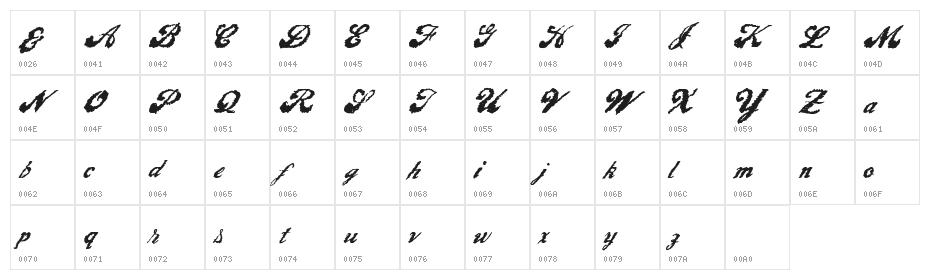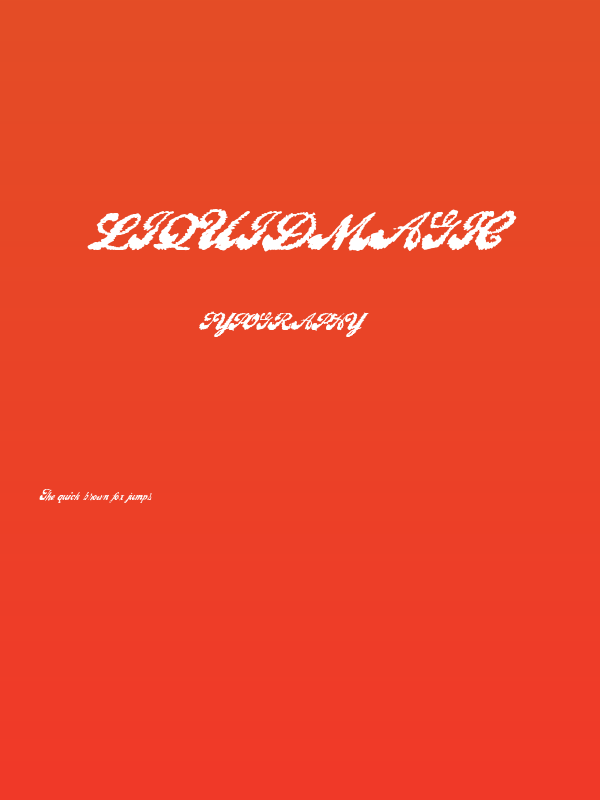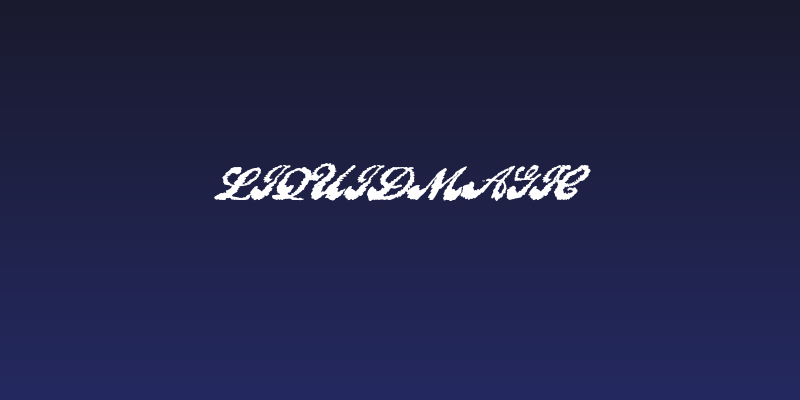
LiquidMagic Font
LiquidMagic Description
This font features a fluid, cursive style that mimics the elegant flow of handwriting. The characters are interconnected, creating a seamless and continuous look. The strokes are bold and dynamic, with varying thickness that adds a sense of movement and grace. This script style is reminiscent of traditional calligraphy, yet it maintains a modern flair. The uppercase letters are grand and sweeping, while the lowercase letters are more subdued, offering a balanced contrast. The special characters are integrated smoothly, maintaining the overall aesthetic of the font.
| Use Case | Logos, Headlines, Invitations |
| Proposed Projects | Ideal for wedding invitations, elegant branding, greeting cards, and any project requiring a touch of sophistication and fluidity. |